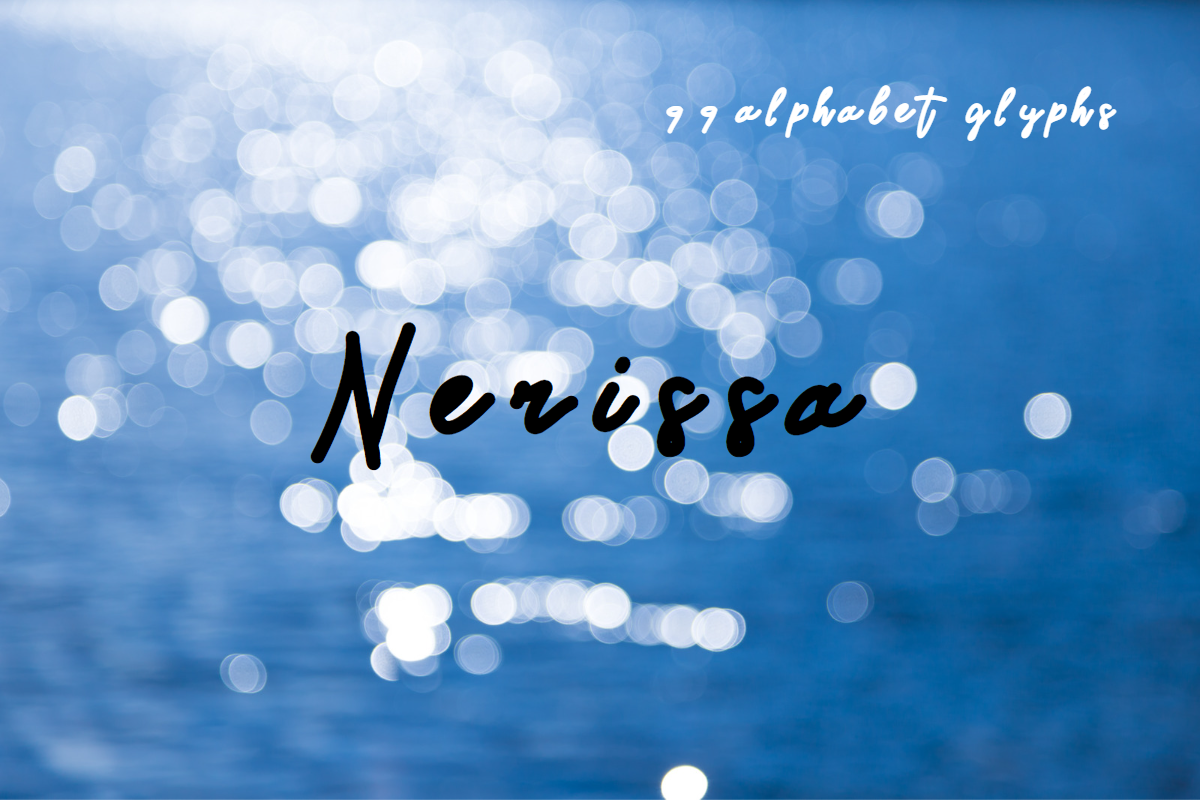
Nerissa font
Nerissa is my first script italic font. It contains 99 alphabet glyphs including numbers and punctuation. Whilst it is a script font, it also has a playful style.